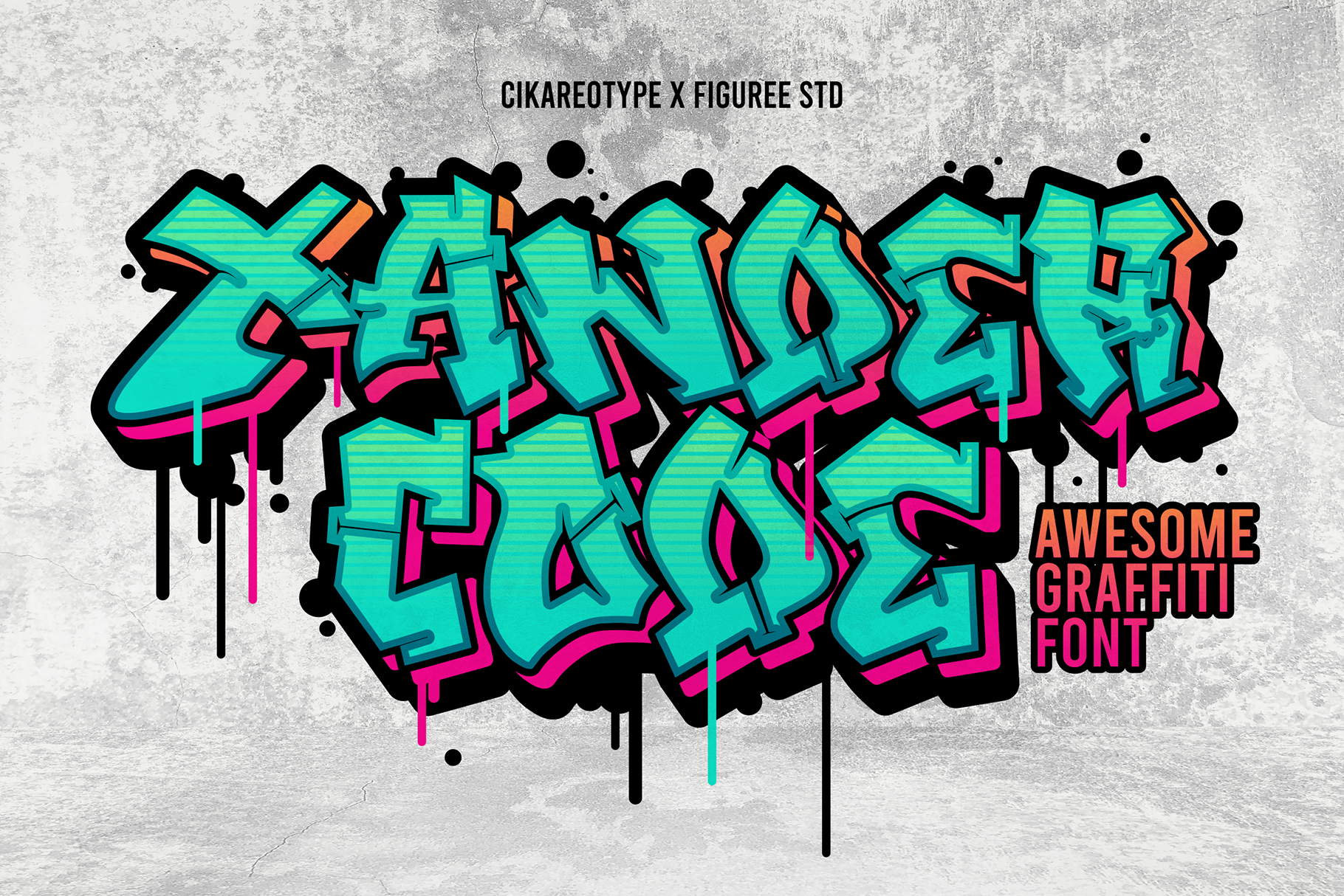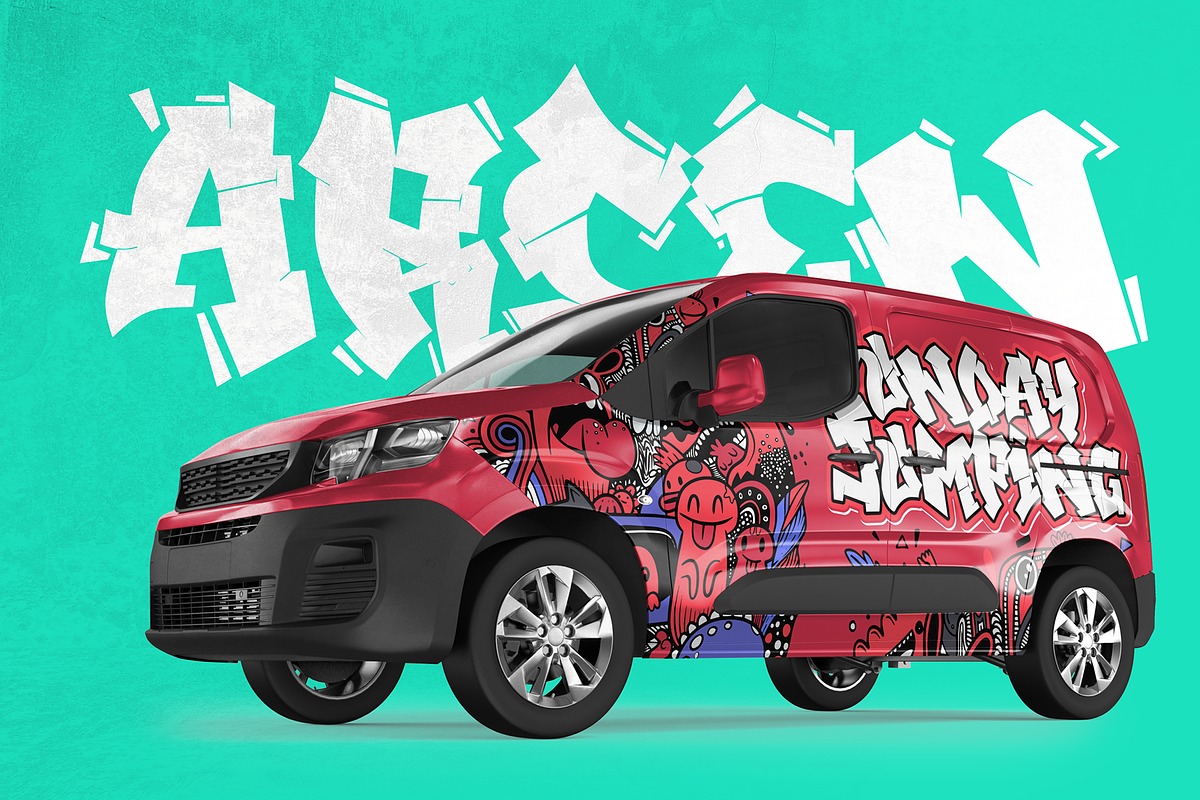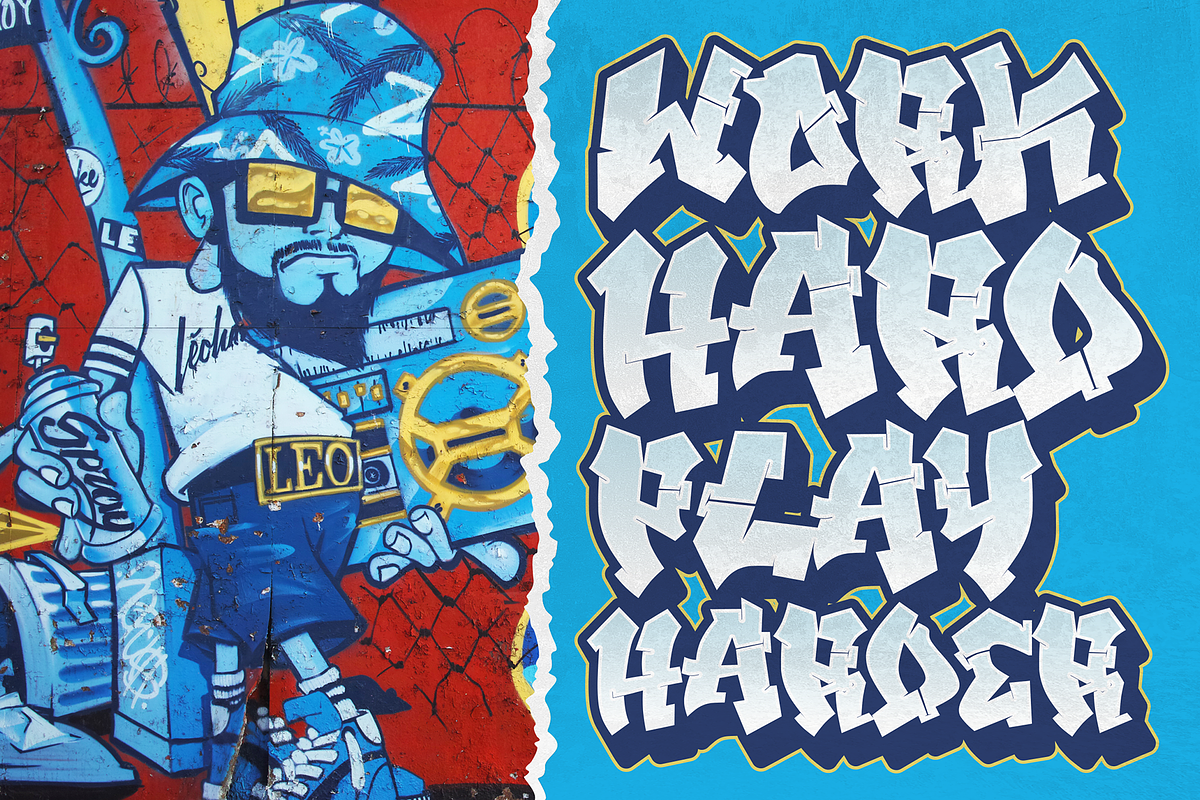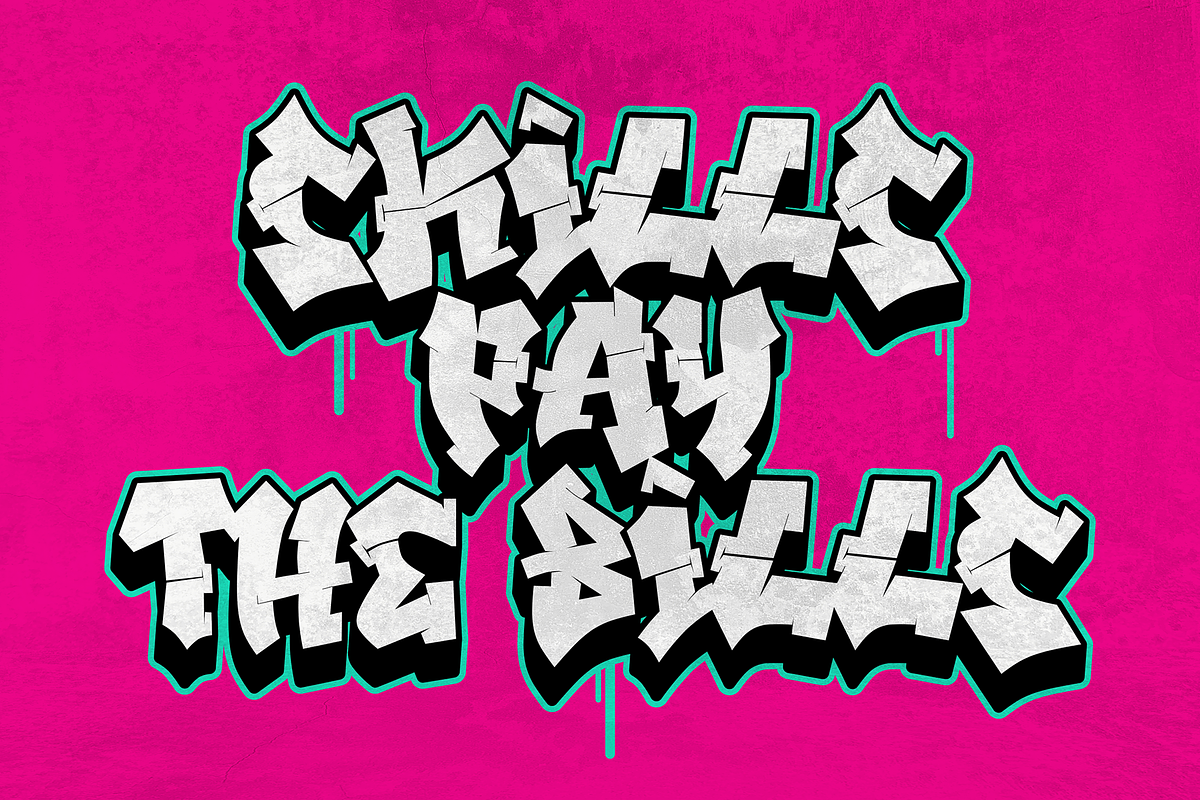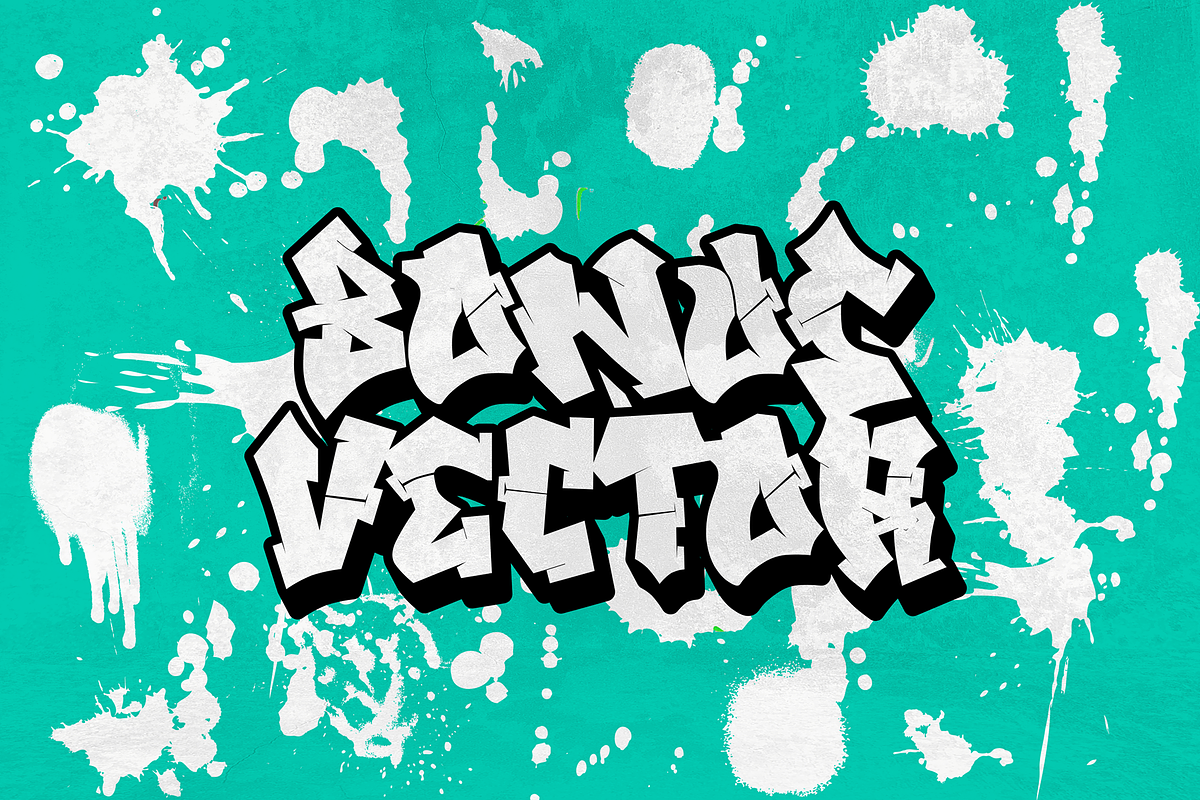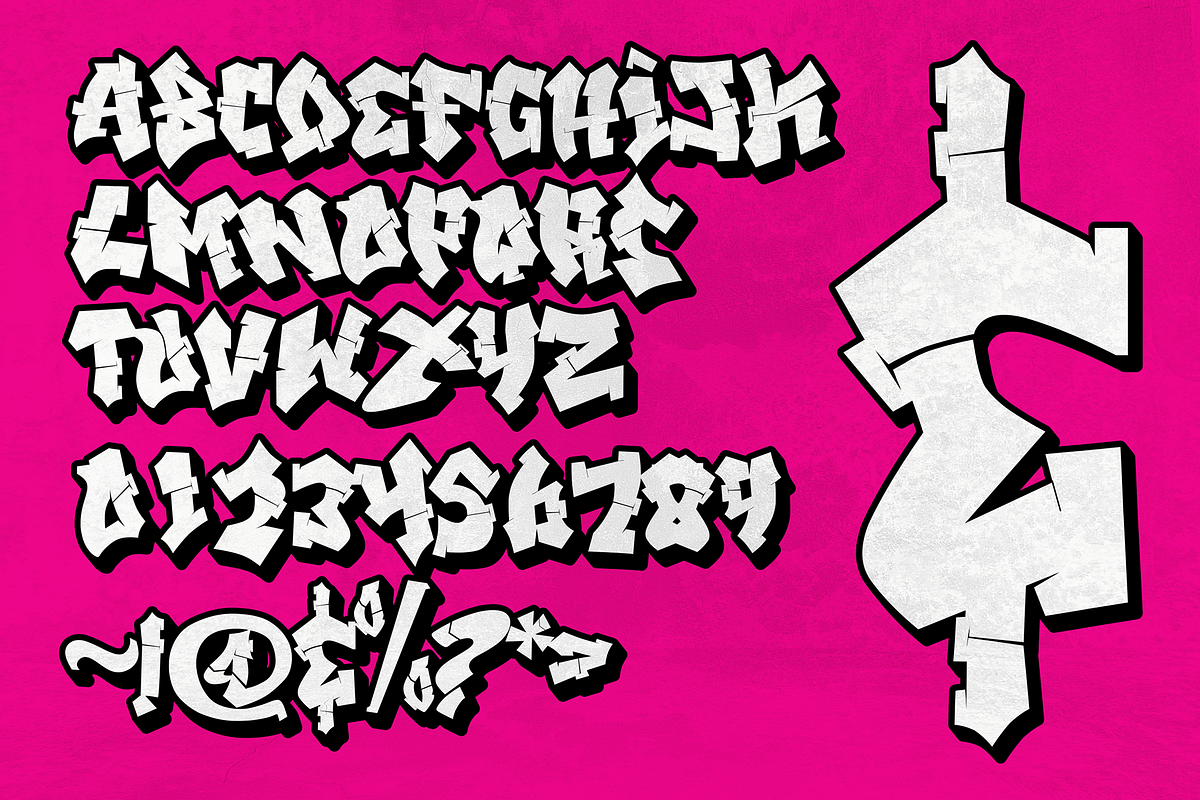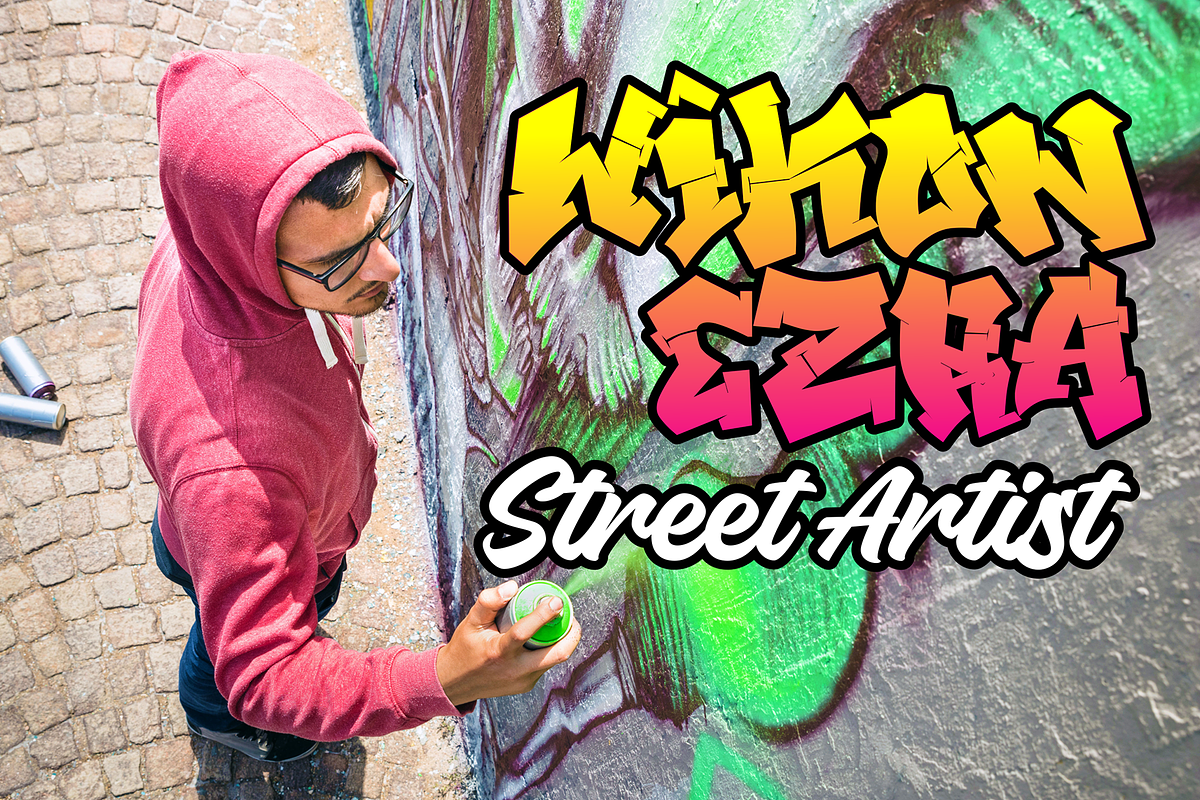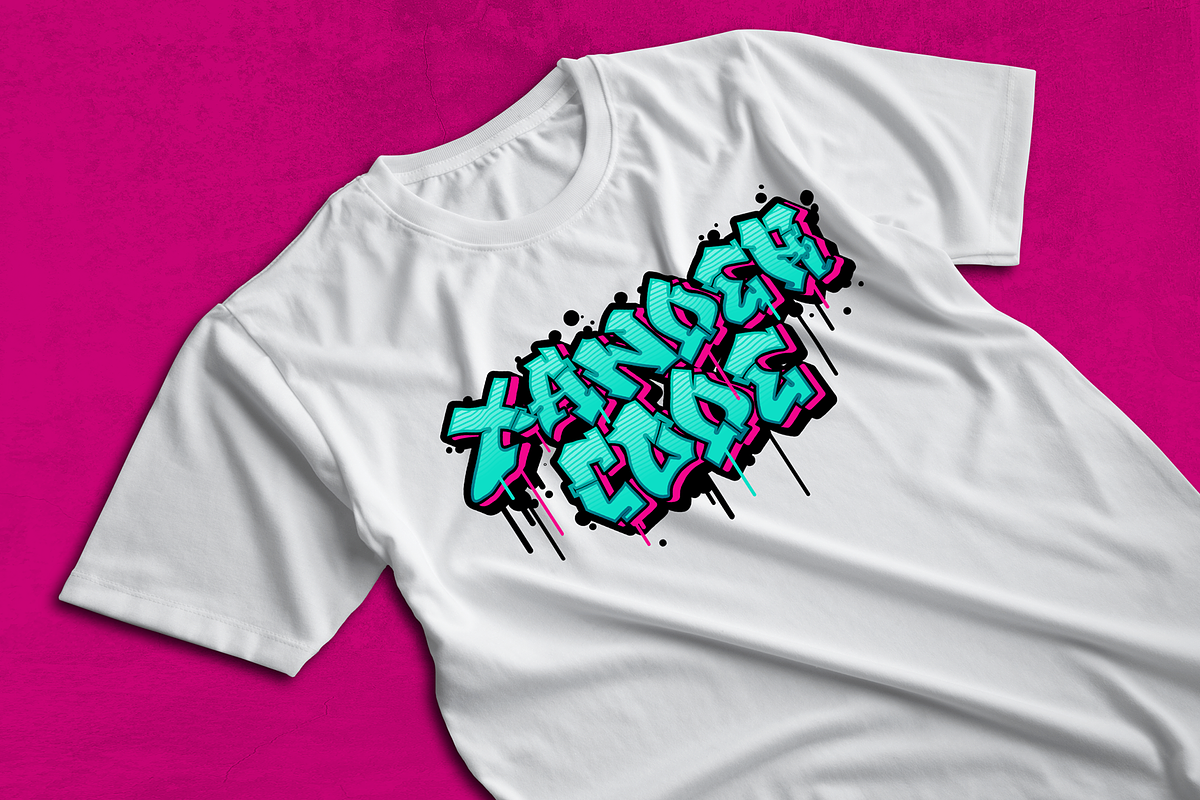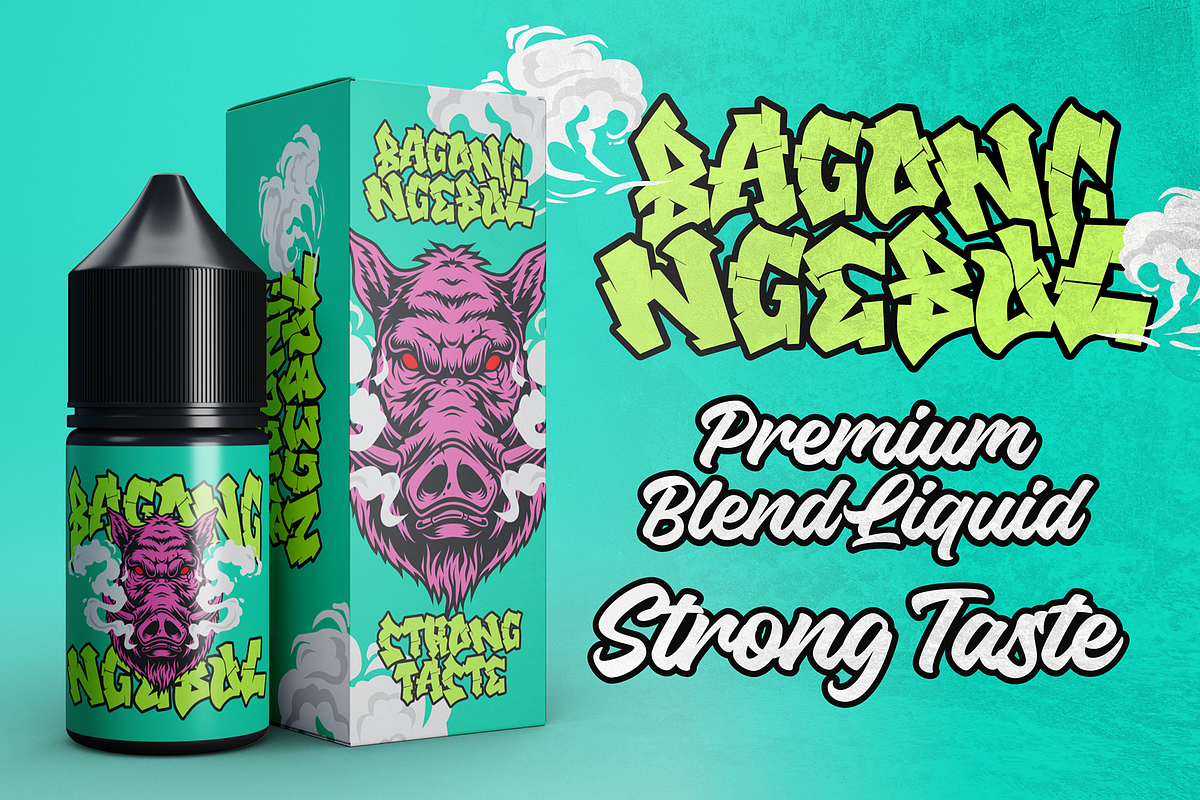
Xandercode - Awesome Graffiti Font
Xandercode is a bold and chunky graffiti font. This font was designed so that users can use it more easily and make graffiti designs easier. Xandercode is very suitable for use in various media such as; packaging, logos, labels, posters, shirt designs, bulletins, typography, and many other media, especially with graffiti look.
- All-caps